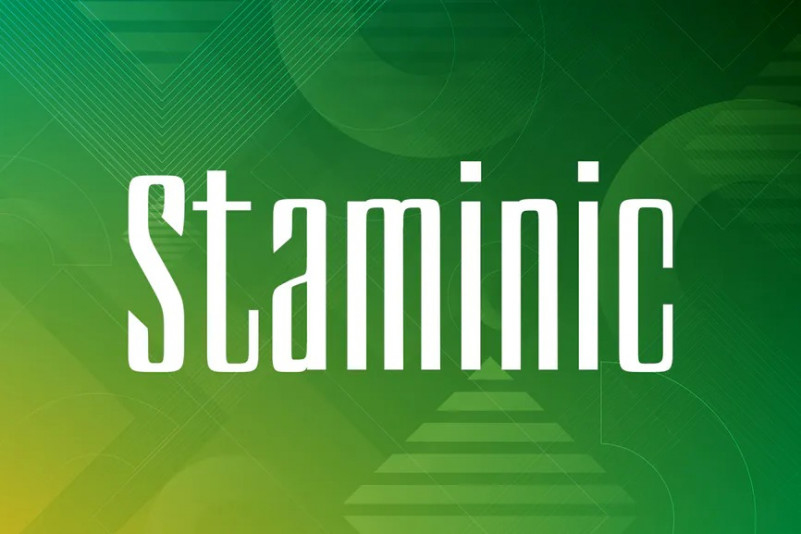
Staminic Font
Staminic is a modern Sans Serif which is perfect for logos, name card, magazine layouts, invitations, headers, posters, branding, packaging.